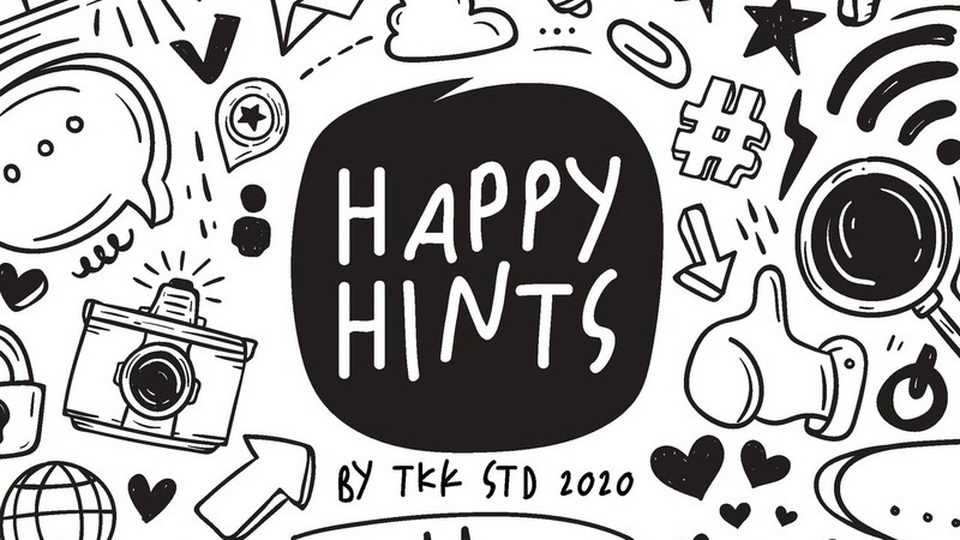
Download Happy Hints font, a typeface that bring the children handwriting to its own level. with quirky shape, bouncy baseline, un-even line between letters, it bring a lot of scribble feel in it.